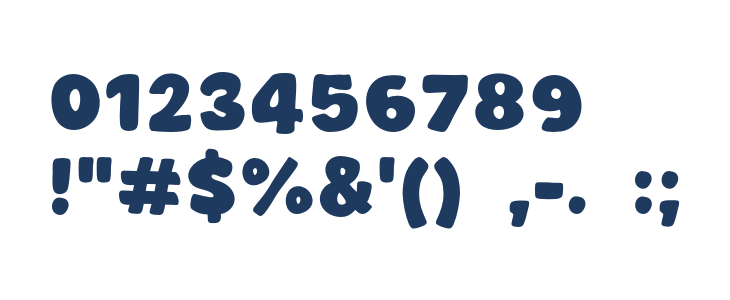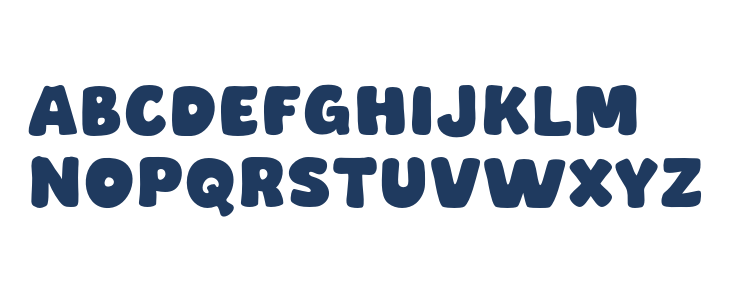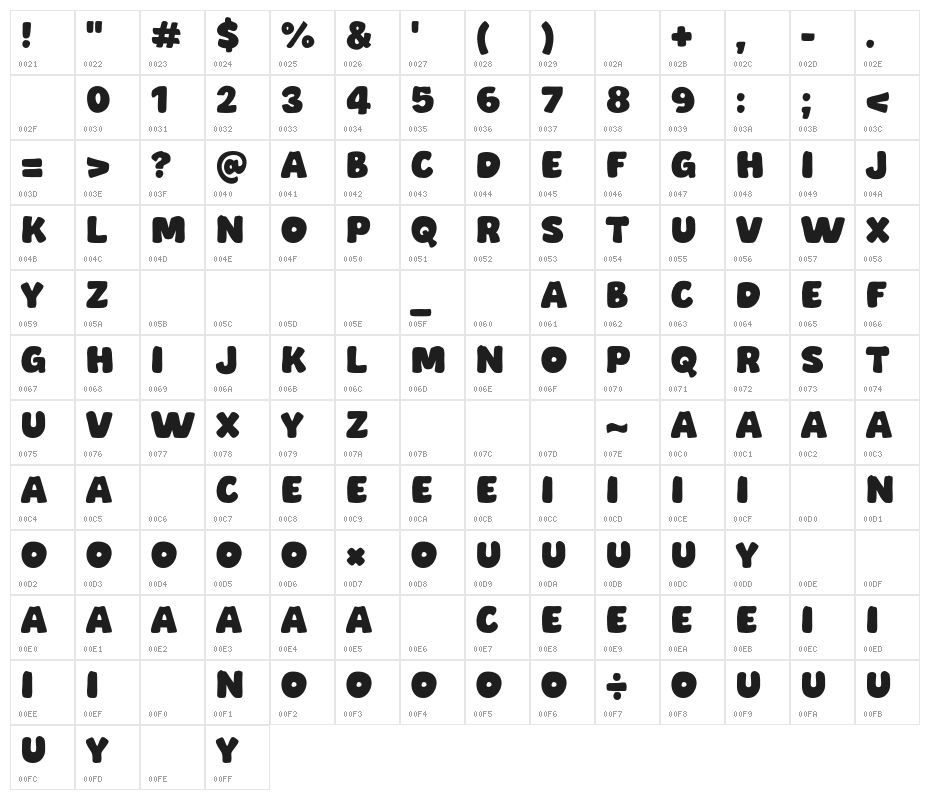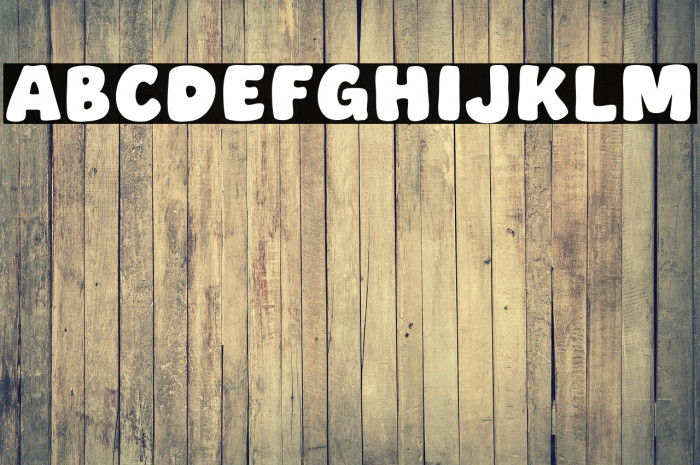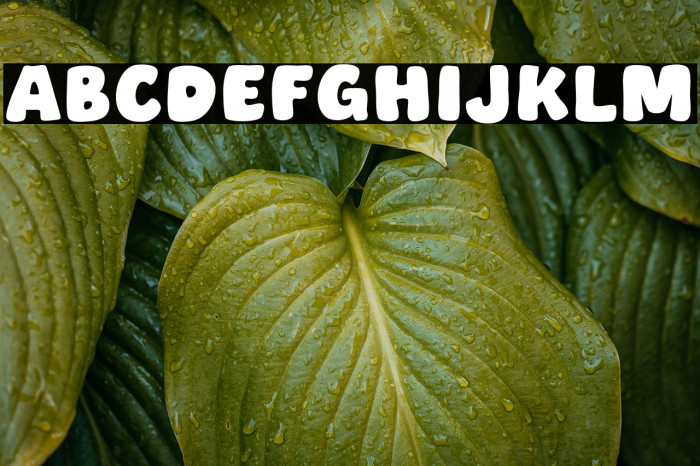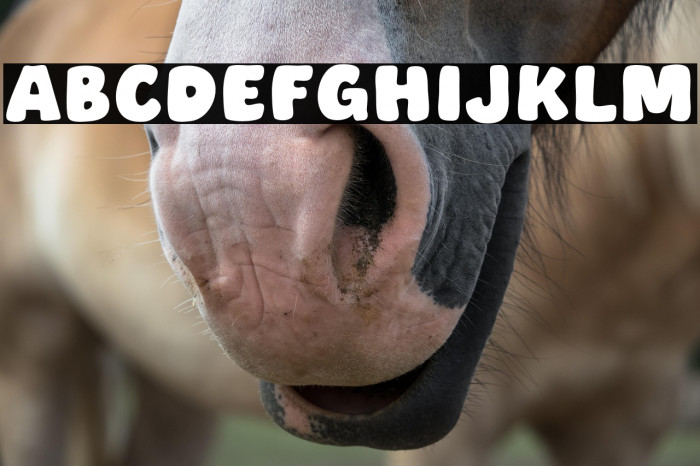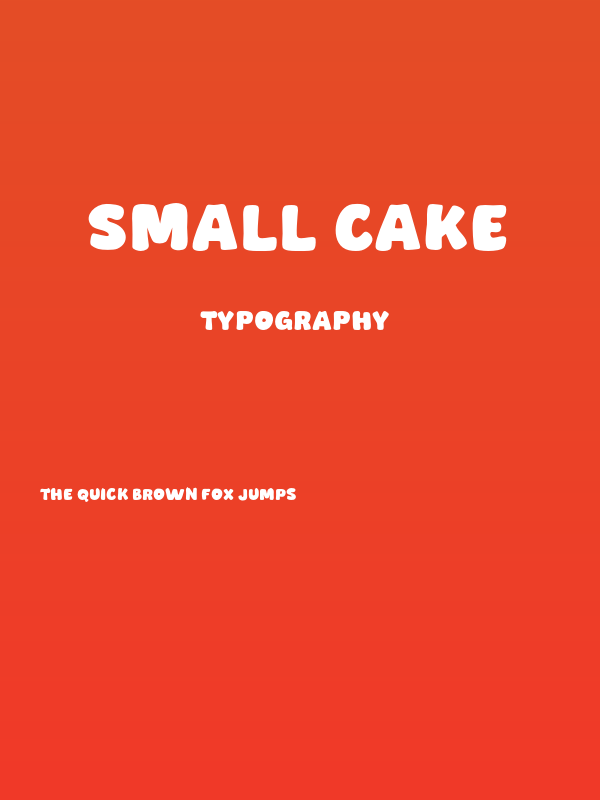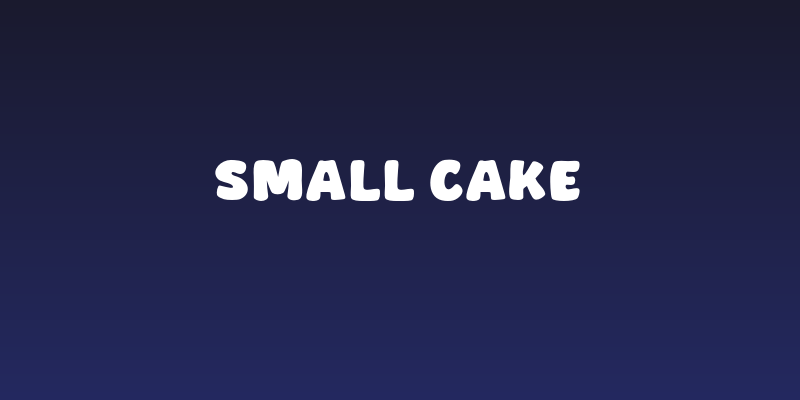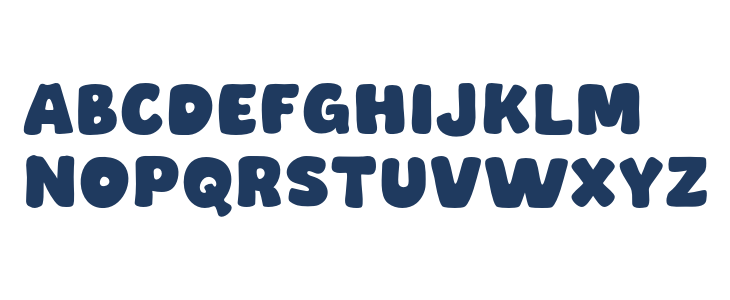
Small Cake Font
Small Cake Description
A bold, rounded, playful sans-serif font with thick strokes and soft edges, featuring uniform stroke weight and slightly irregular shapes that give it a hand-crafted, casual feel.
| Overall Style | Playful, Casual, Friendly |
| Use Case | Headlines, Logos, Packaging, Display text |
| Proposed Projects | Children's books, party invitations, casual branding, logos for playful or informal products, posters, and packaging for sweets or toys. |